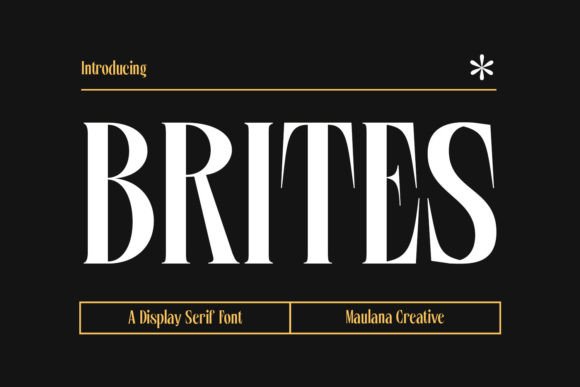
The Designer’s Dilemma: How Brites Font Became My Go-To
I still remember the frustration of working on a project, hours spent crafting the perfect design, only to realize that the font I chose just wasn’t cutting it. The client wanted something elegant, sophisticated, and eye-catching, but my font selection fell flat. It was a moment of panic, but it led me to discover Brites Font, a modern high-contrast serif font that has since become a staple in my design toolkit.
First Impressions: A Love Affair with Brites
As soon as I laid eyes on Brites, I knew I had found something special. Its distinct and well-balanced letters make it a masterpiece, with an incredibly versatile style that’s perfect for creating spectacular designs. Here are a few things that I love about Brites:
• ✨ High-contrast serifs that add a touch of elegance to any design
• ✅ Versatile style that works well for both headings and body text
• 💯 Unique letterforms that add a touch of sophistication to any design
The Not-So-Perfect Font: A Few Quirks
While Brites is an amazing font, it’s not without its quirks. Here are a few things to keep in mind:
• 🤔 Limited use in body text: While Brites is beautiful, its high-contrast serifs can be a bit challenging to read in long blocks of text.
• ⚠️ Requires careful kerning: As with any font, kerning is crucial to ensure that your text looks its best.
The Story Behind Brites: A Designer Inspiration
Brites was designed with the goal of creating a modern, high-contrast serif font that’s both elegant and versatile. The designer drew inspiration from classic serif fonts, adding a touch of sophistication and personality to create a truly unique font.
Here are a few frequently asked questions about Brites:
Q: What is the best use for Brites font?
A: Brites is perfect for headings, titles, and short blocks of text where you want to make a statement.
Q: Can I use Brites for body text?
A: While Brites is beautiful, its high-contrast serifs can be a bit challenging to read in long blocks of text. It’s best used for headings and short paragraphs.